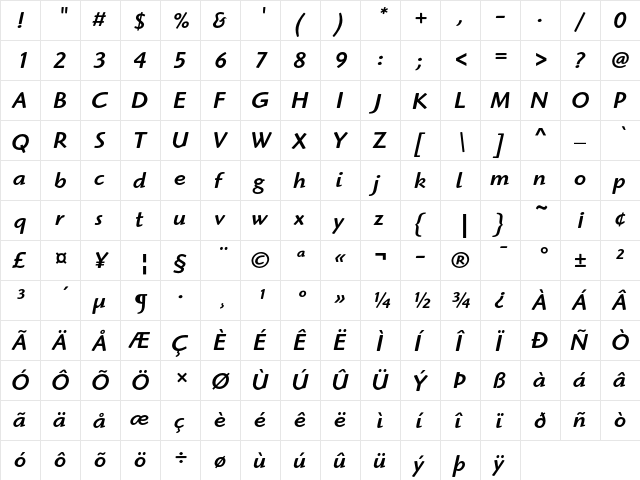
ITC Highlander Medium Italic
Design Context for ITC Highlander Typeface
ITC Highlander is a composed and adaptable typeface that performs quietly and consistently across a wide range of design contexts. The slanted form adds forward momentum and visual energy.
Pro Tip: Try ITC Highlander for annotation and caption copy alongside an upright companion — the contrast in angle creates a dynamic but ordered typographic system.